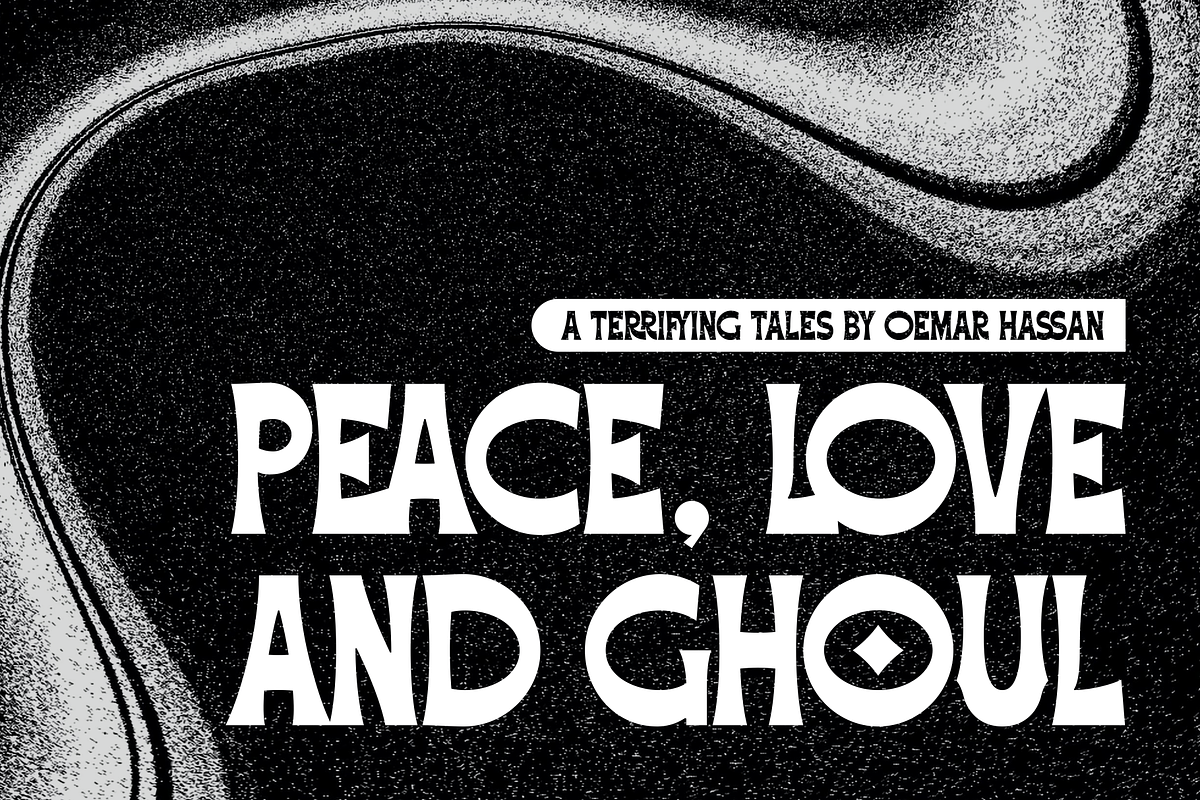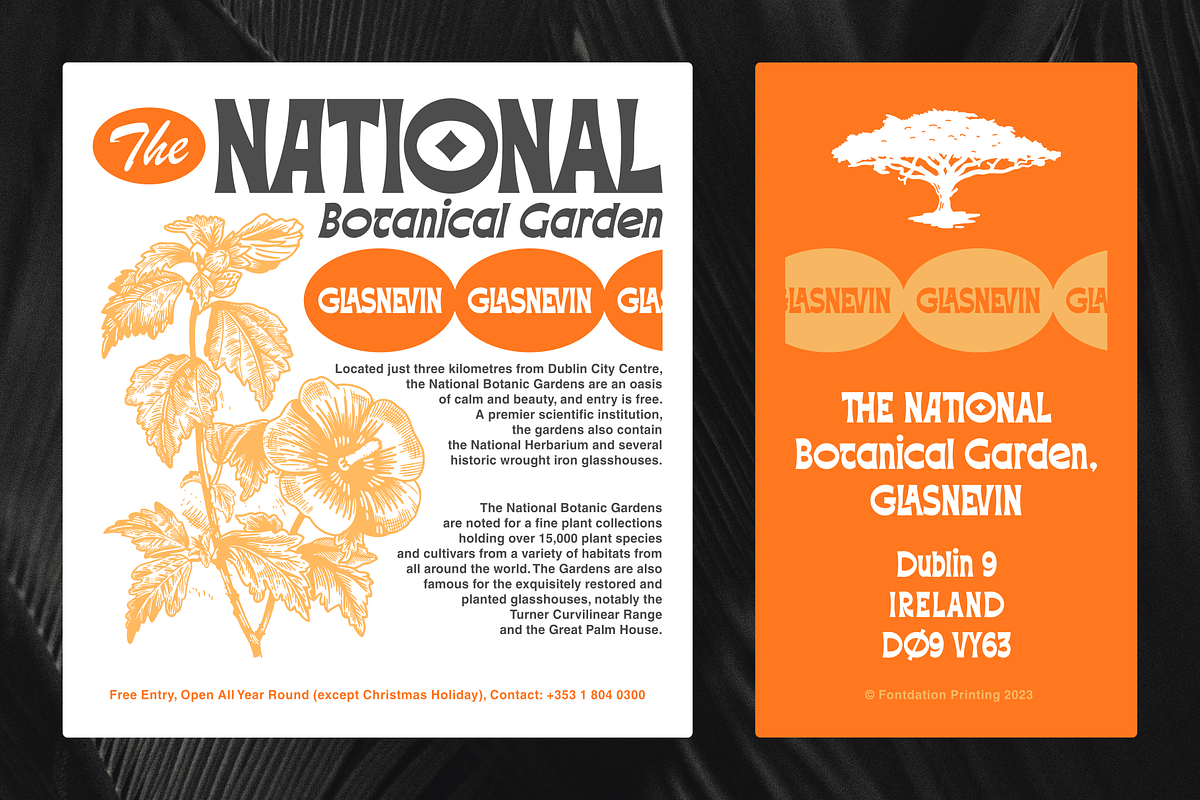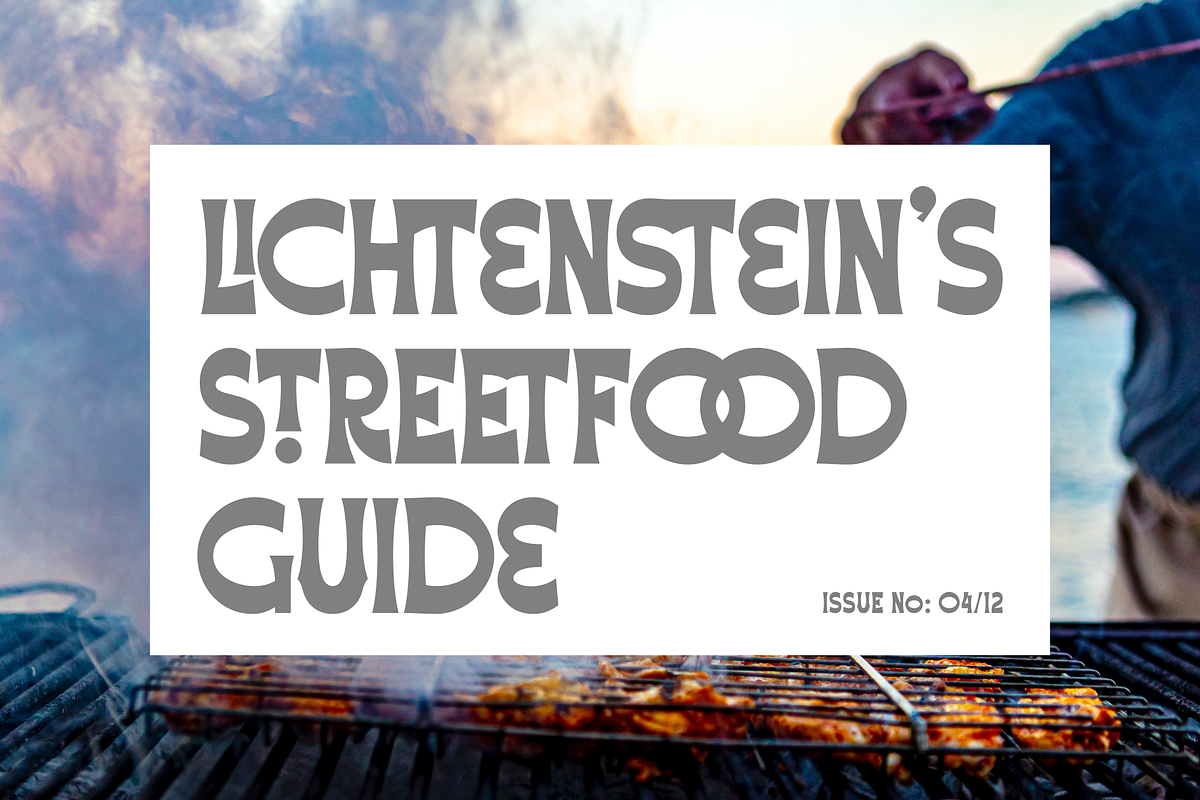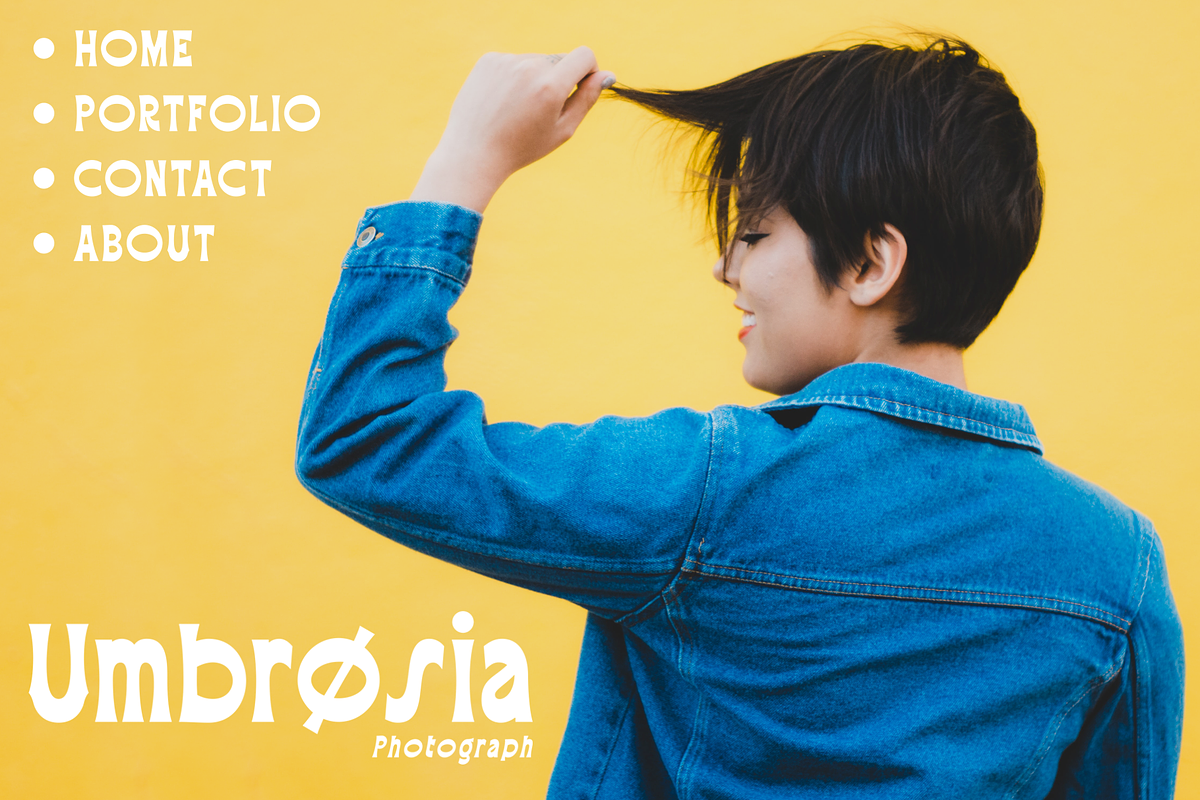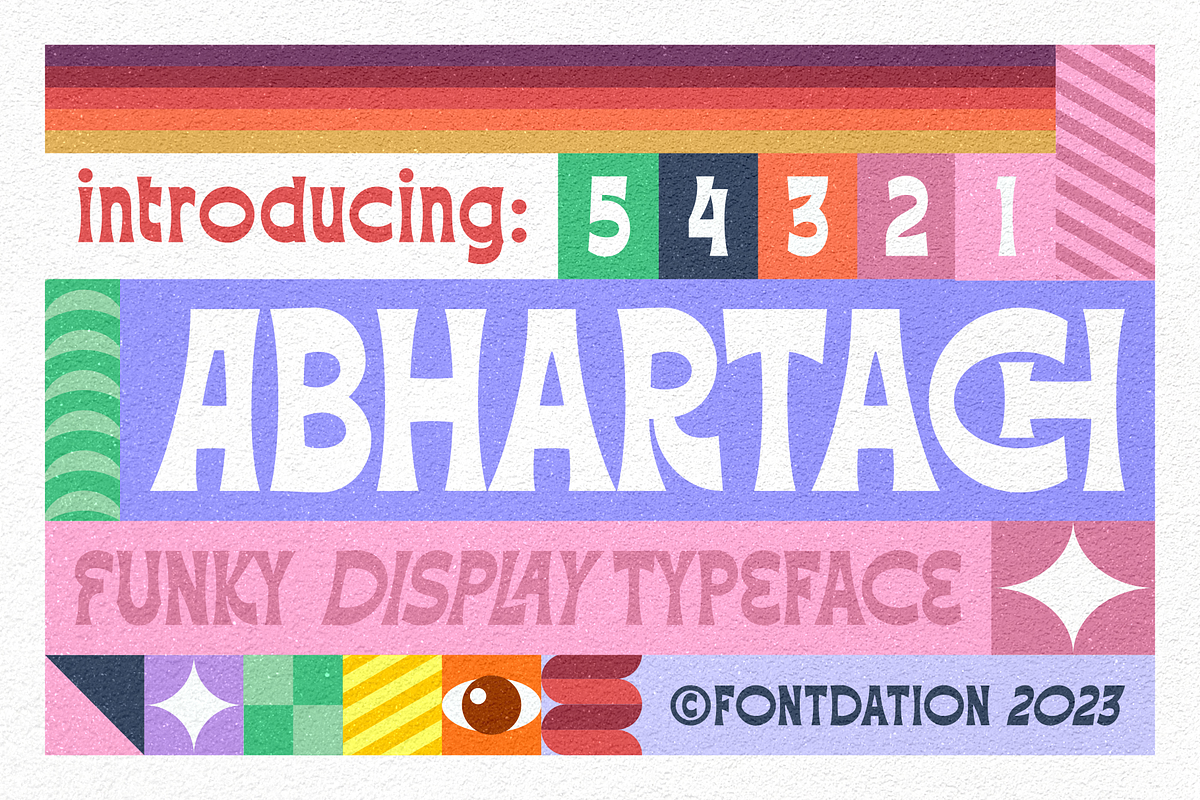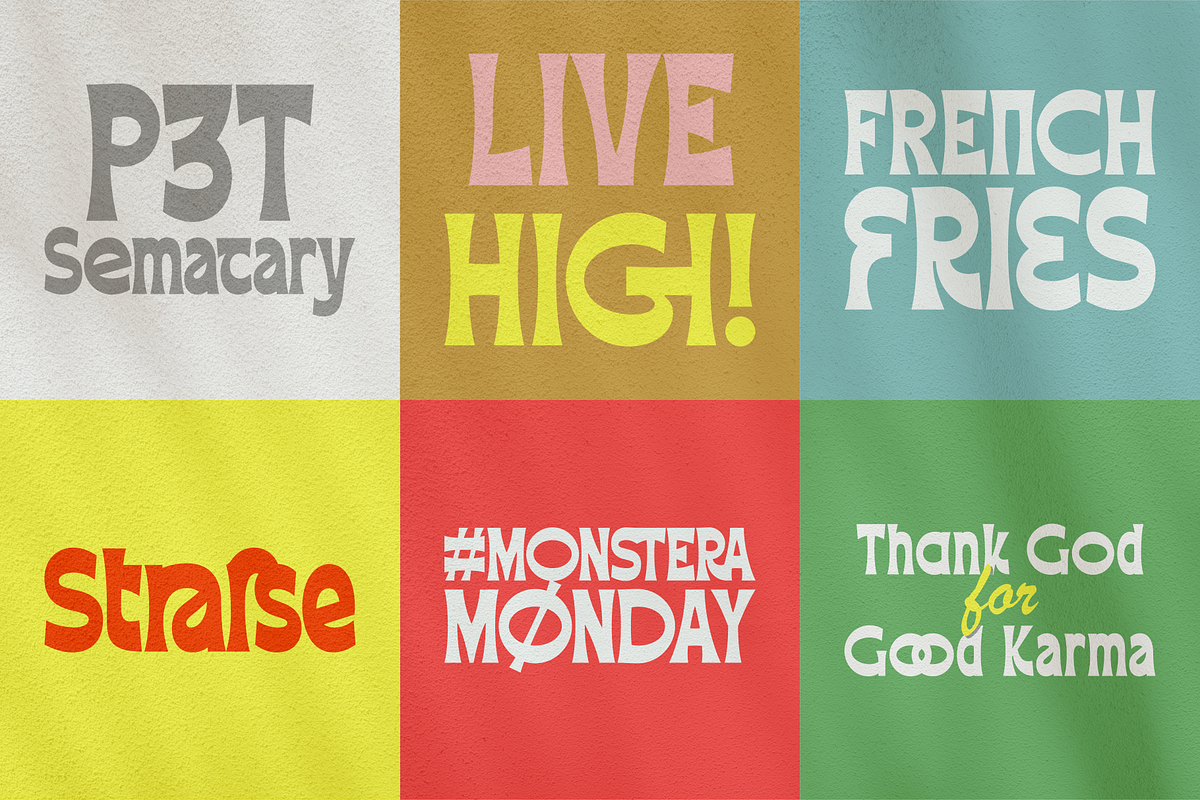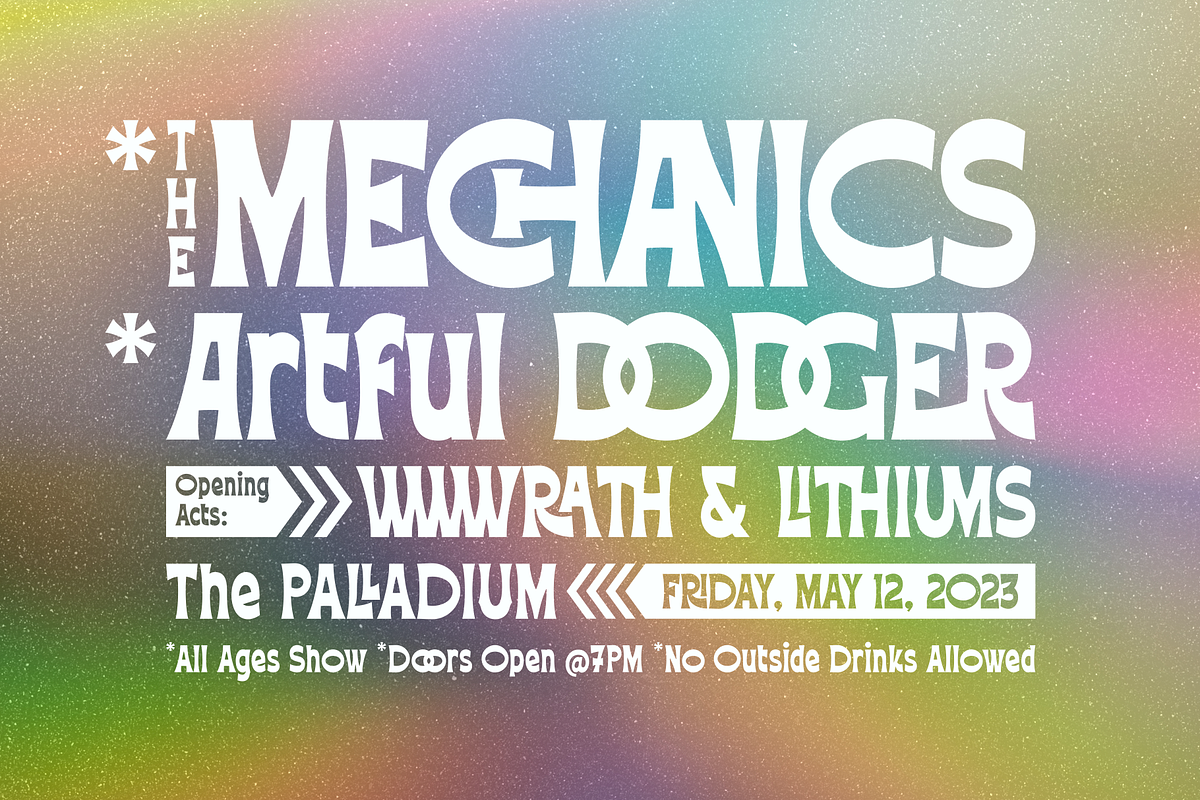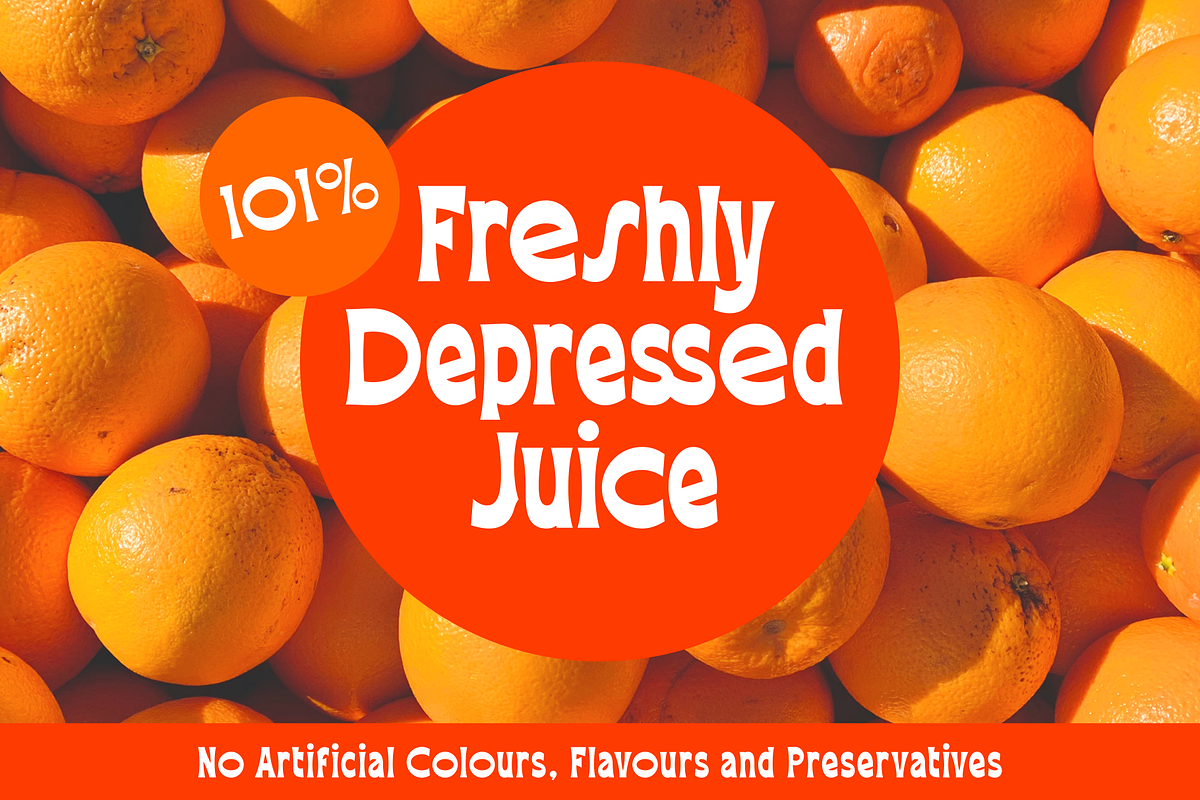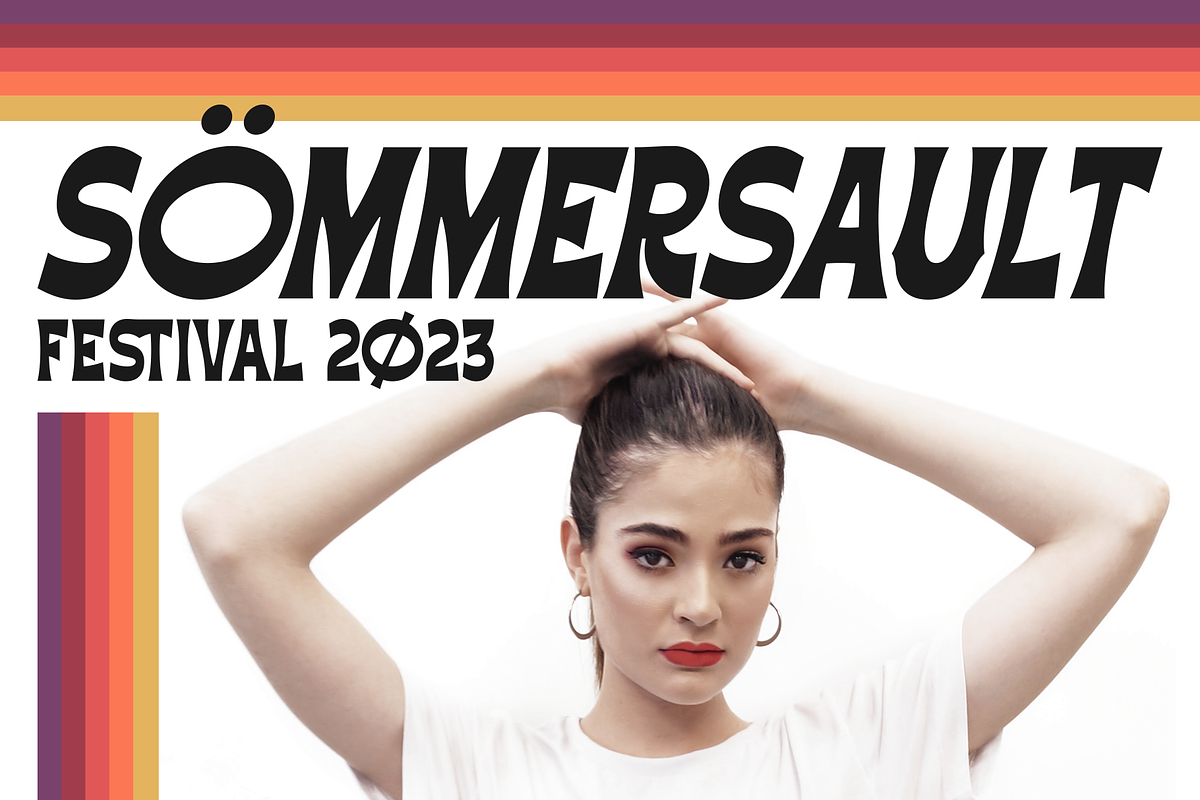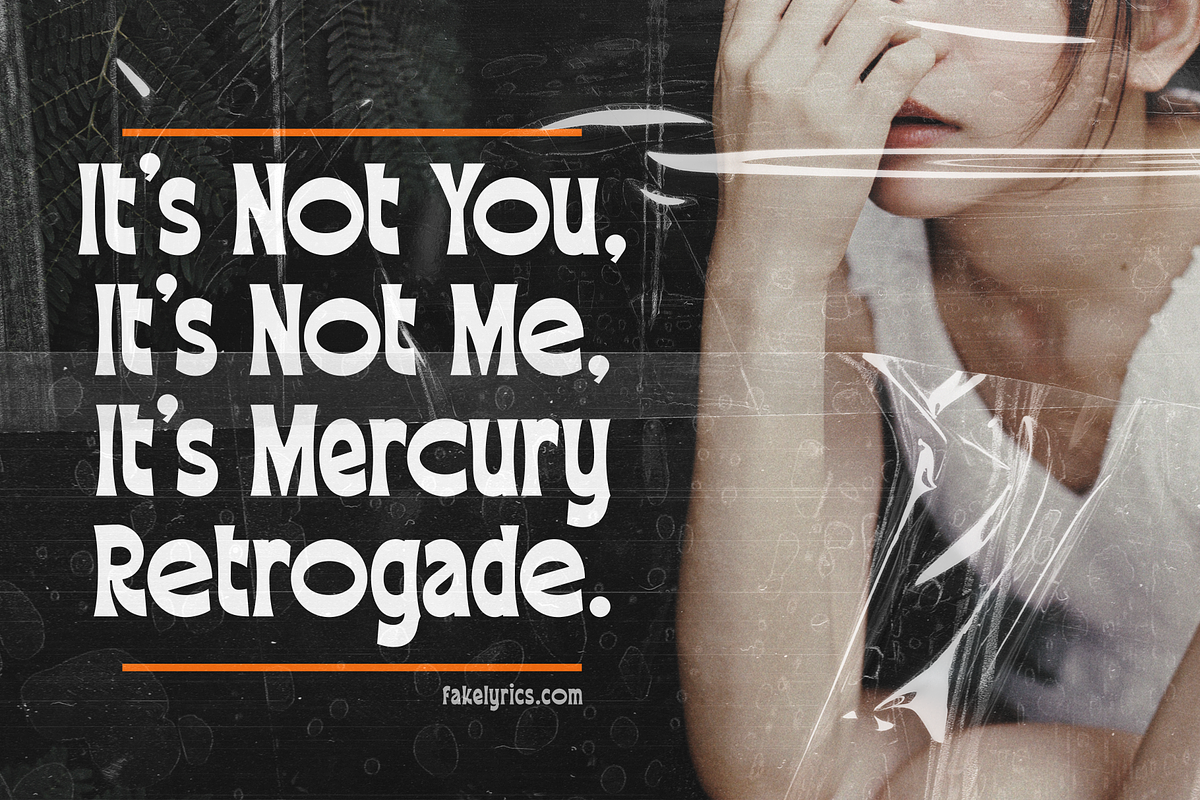
Abhartach | Funky Display
Introducing Abhartach, funky reverse-contrast display typeface. A perfect mix from both classic and modern typography. Packed with lots of alternate characters and ligatures (and faux-italic style too!), lets you explore more letter variations that will level up your designing projects. Check out the entire preview images to get the inspiration & hints of how powerful slash beautiful this typeface is.